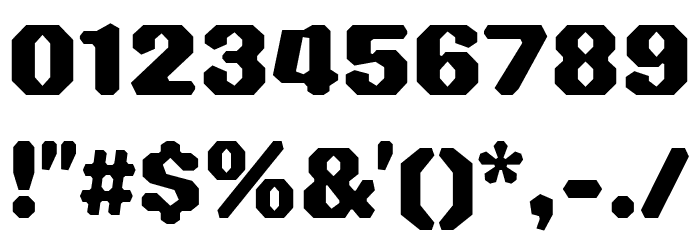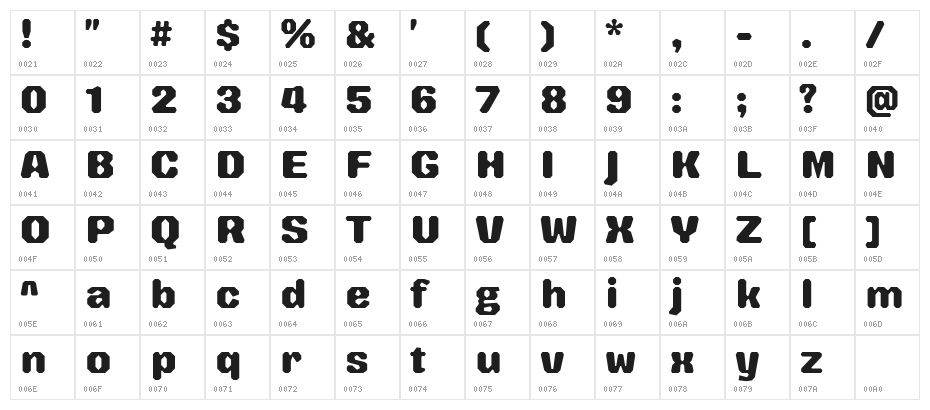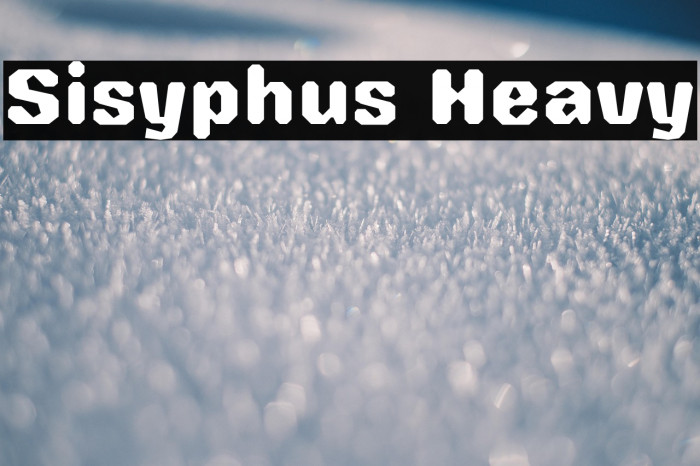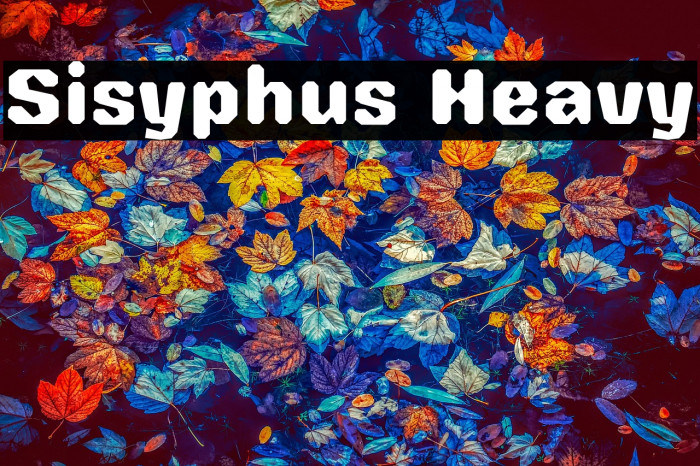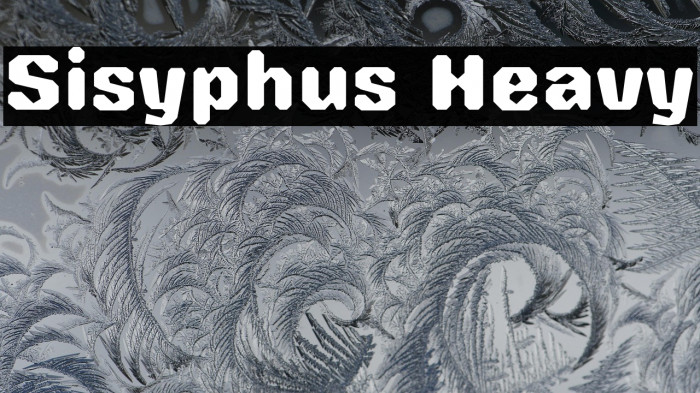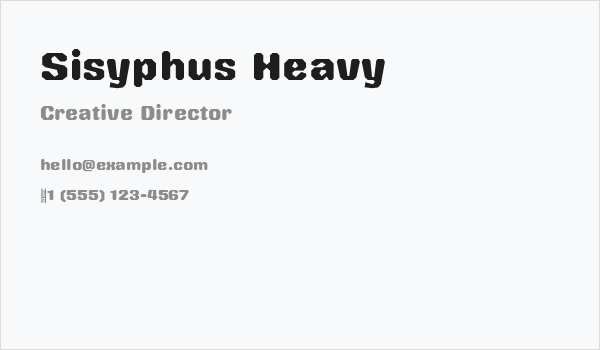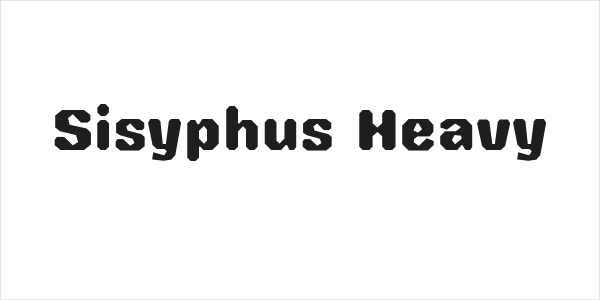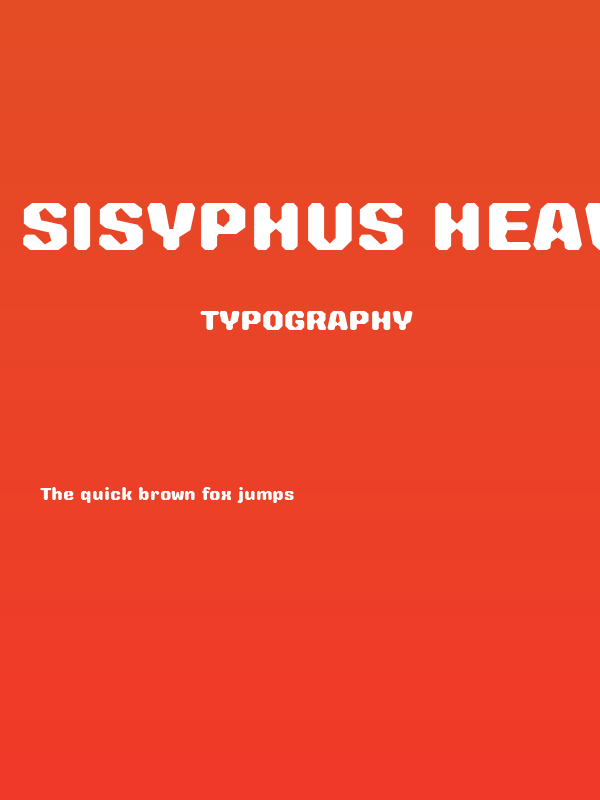
Sisyphus Heavy Font
Sisyphus Heavy Description
This font features a bold and robust design with a strong geometric structure. The characters are constructed with thick strokes and angular edges, giving it a powerful and assertive appearance. The uppercase and lowercase letters maintain a consistent weight, contributing to a cohesive look. The numerals and special characters are equally bold, ensuring legibility and impact. This font's style is reminiscent of industrial or mechanical aesthetics, making it suitable for projects that require a strong visual presence.
| Proposed Projects | Ideal for branding, posters, headlines, and any design requiring a strong, impactful typeface. |